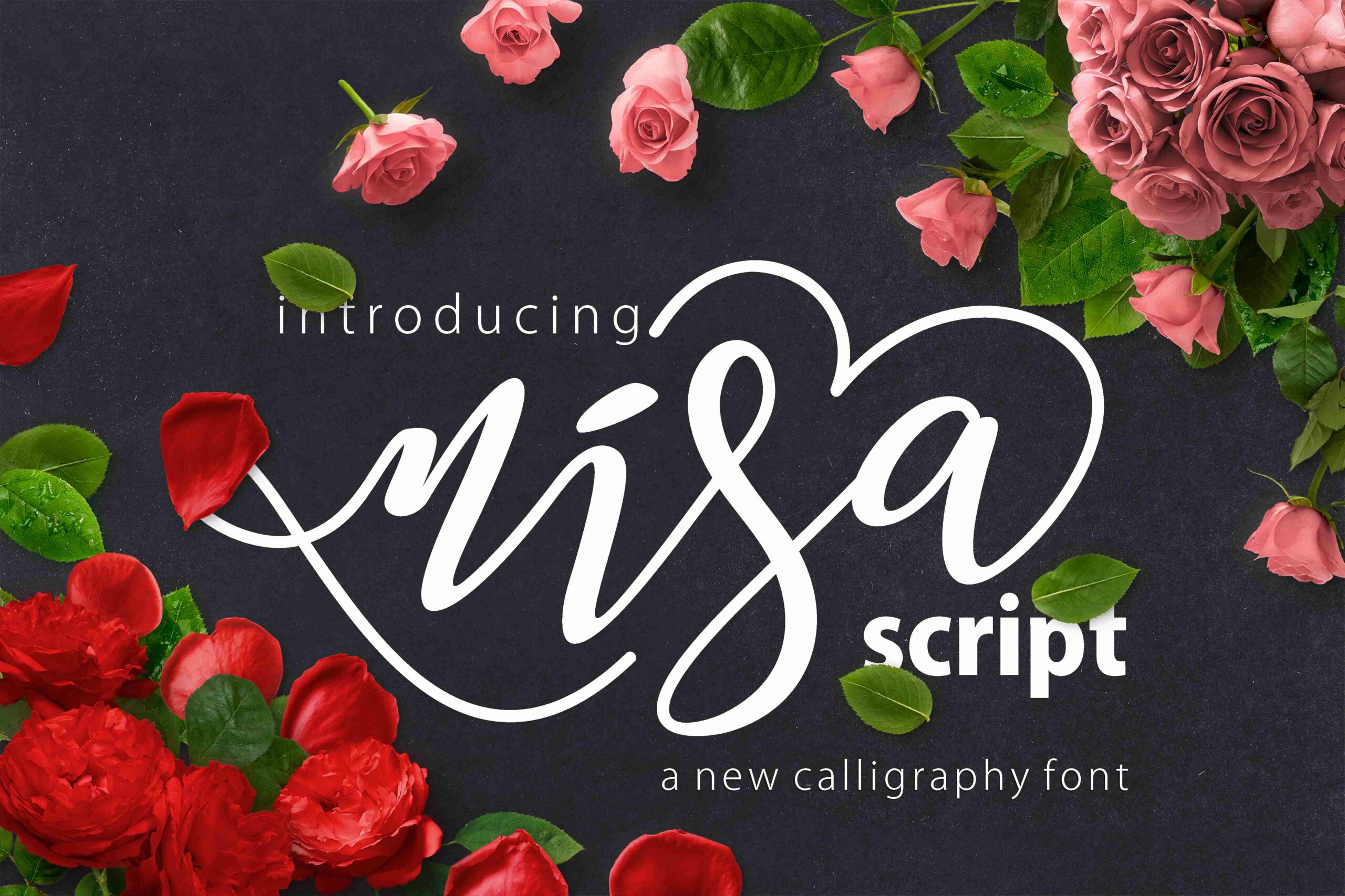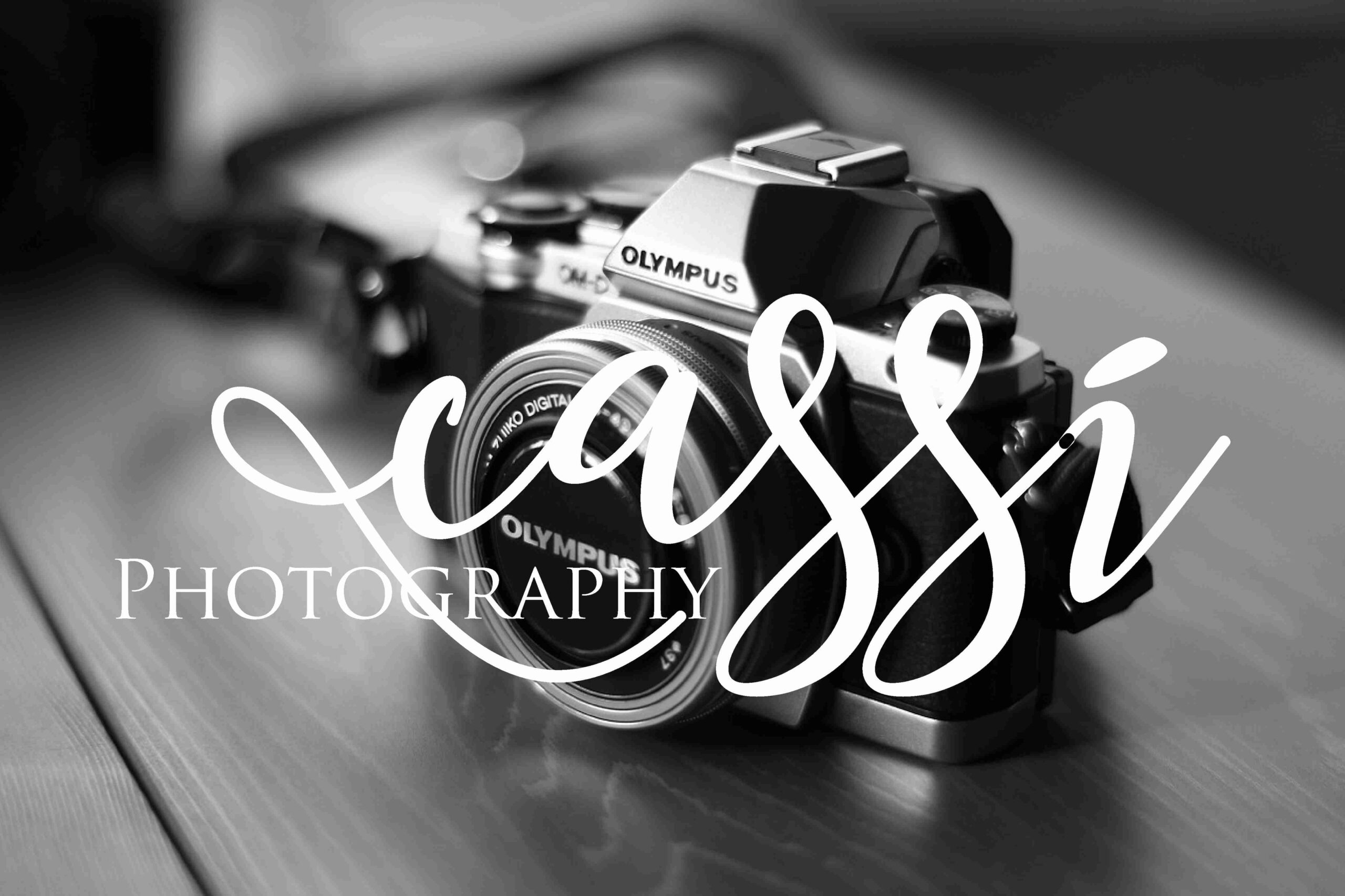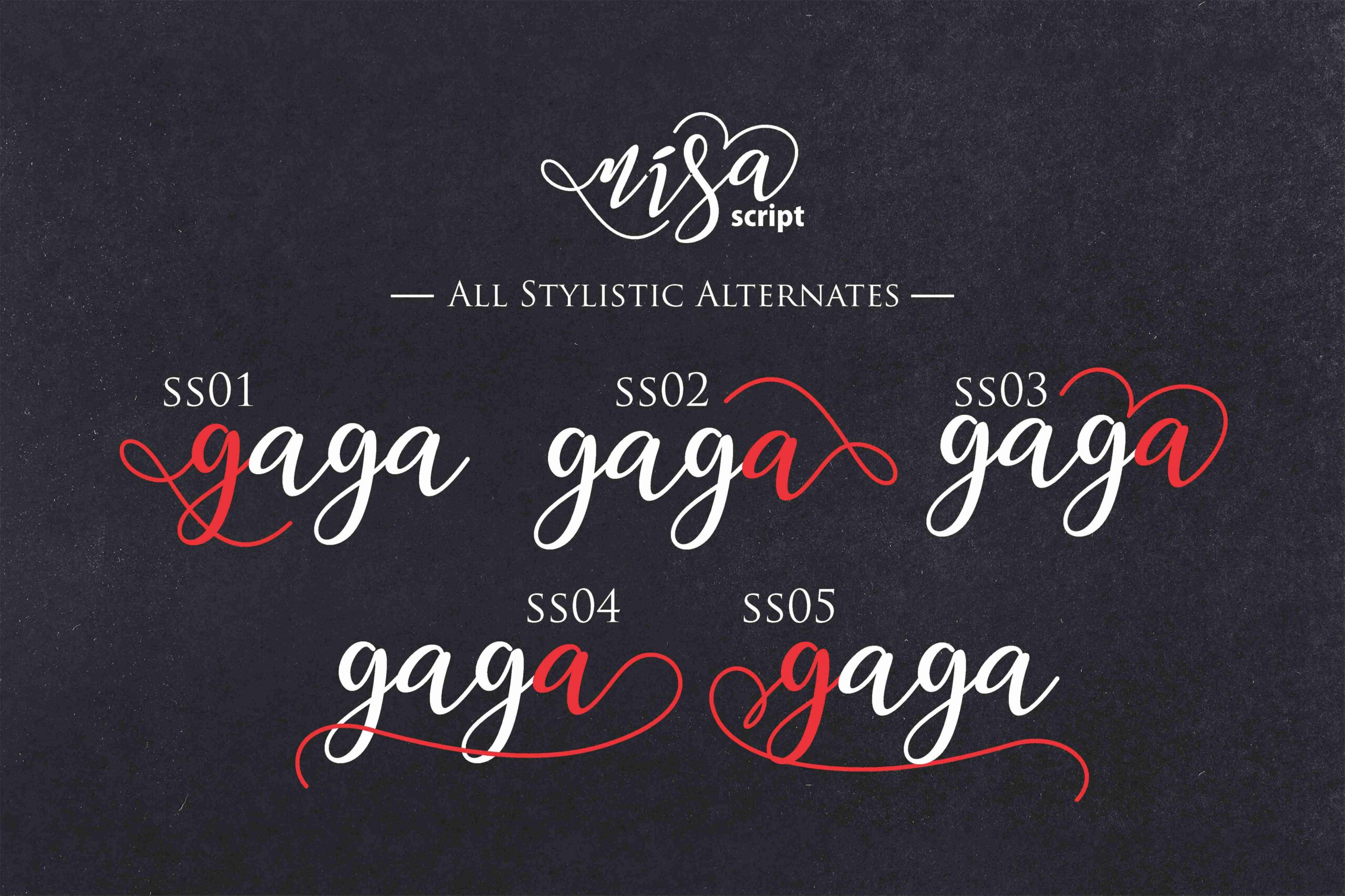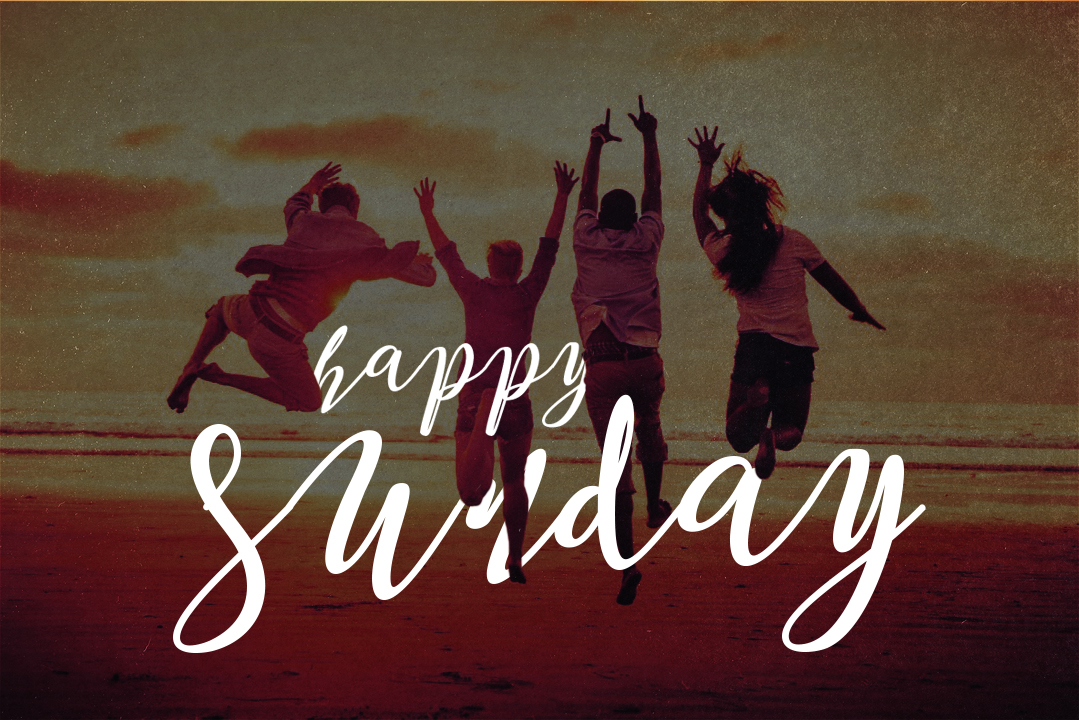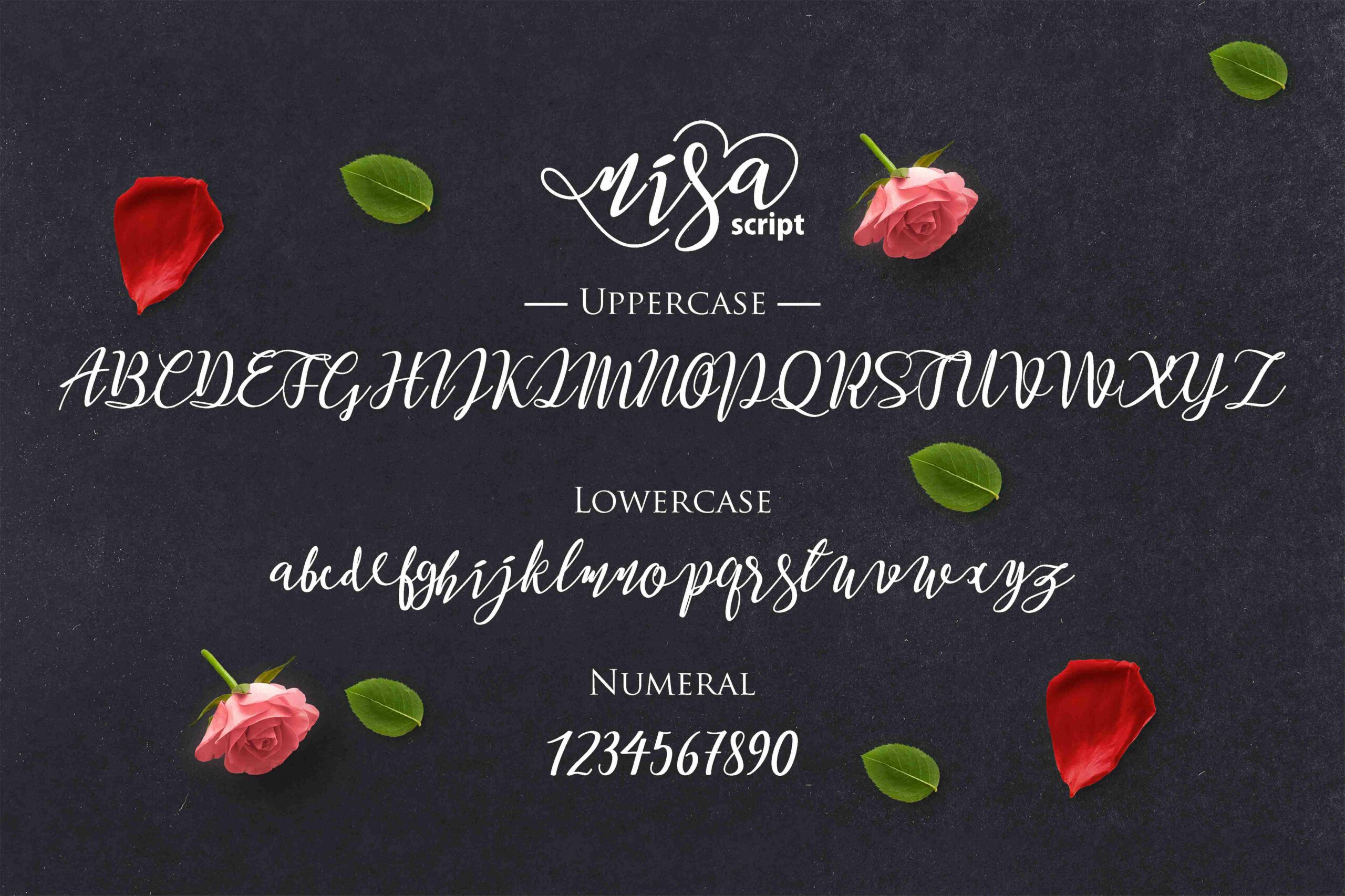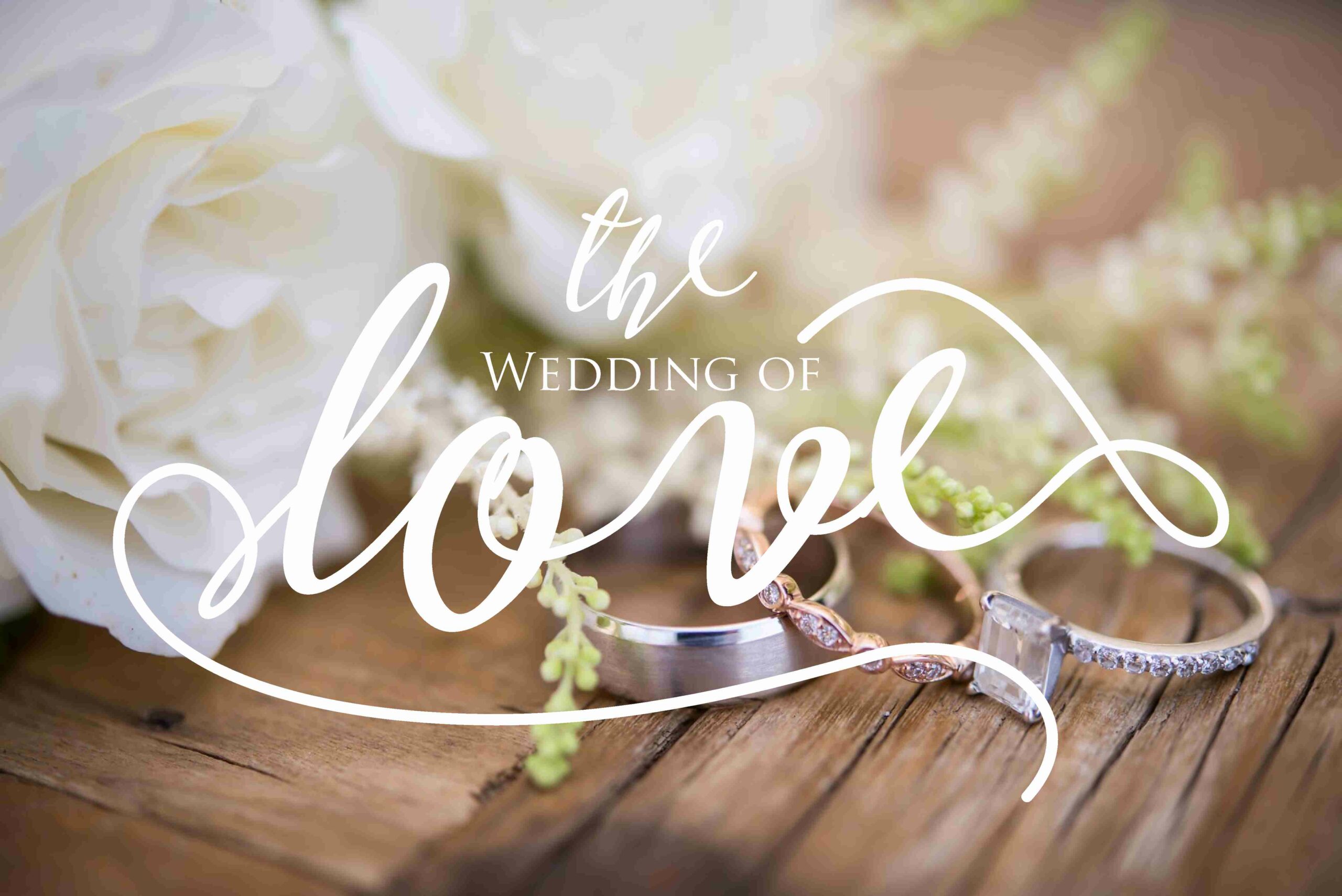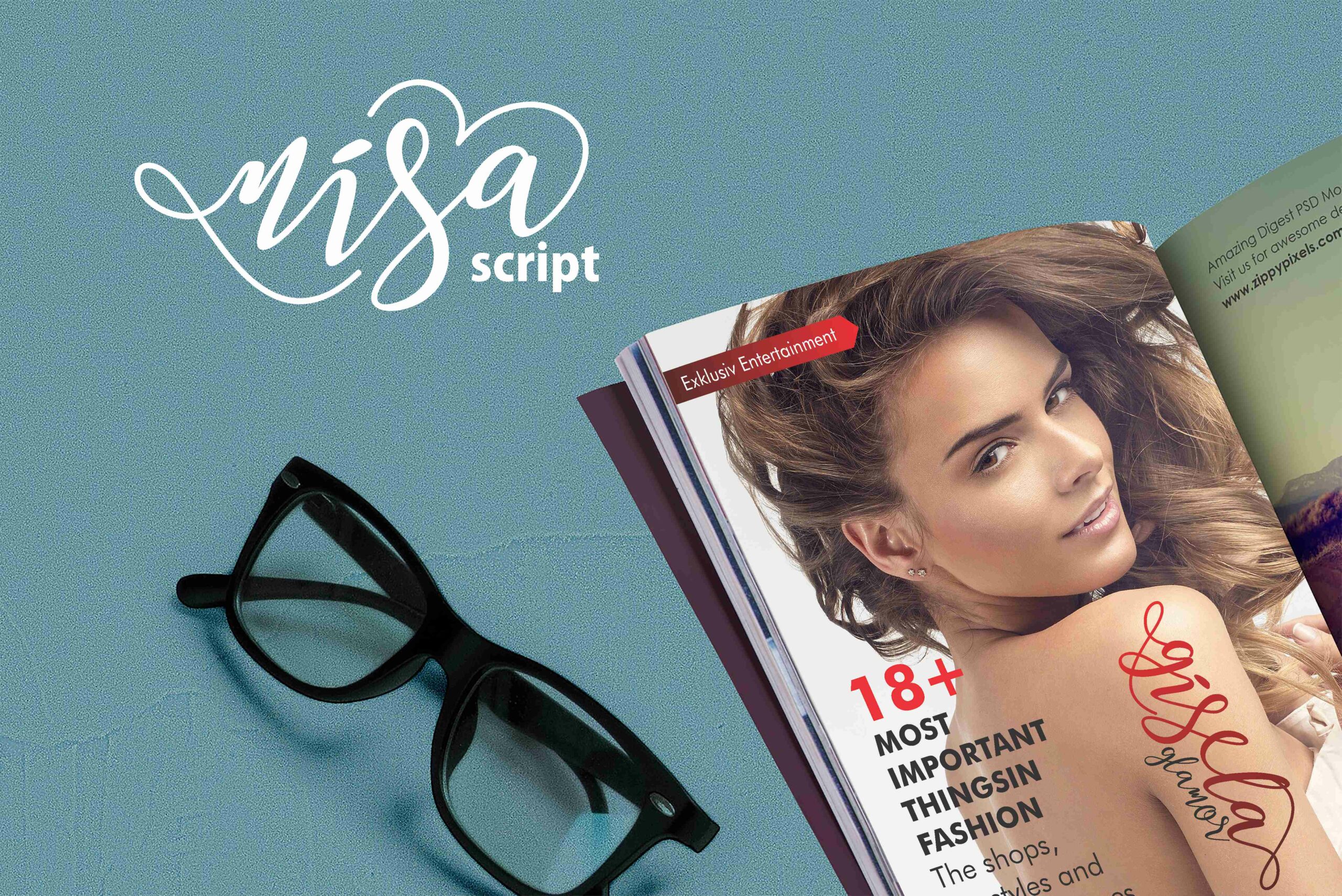
Nisa Font
About Nisa Font
Nisa a new fresh & modern script with a handmade calligraphy style, decorative characters and a dancing baseline. This font is stunning on a large number of design and project ideas.